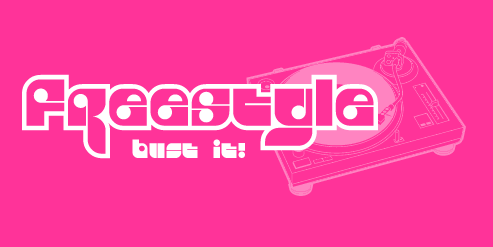
I live to go clubbing. Unfortunately, there are no clubs here in Santa Barbara. While I was designing this slick little fontie, I imagined it being used by all of the top clubs like Giant in Los Angeles. Then they call me up and say, "Ben, we love your fonts! Get down here and party in the V.I.P. room with Christopher Lawrence & Jessica Alba!" Hey, it could happen.